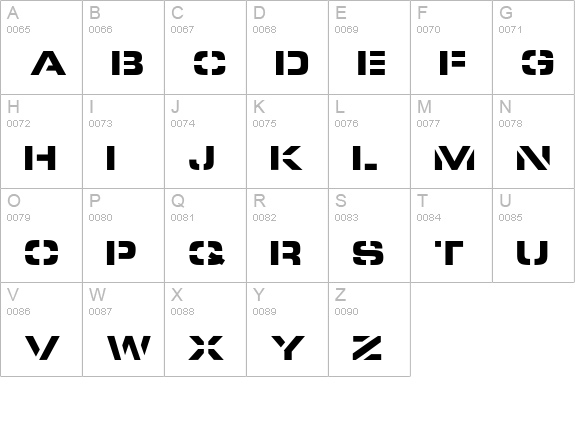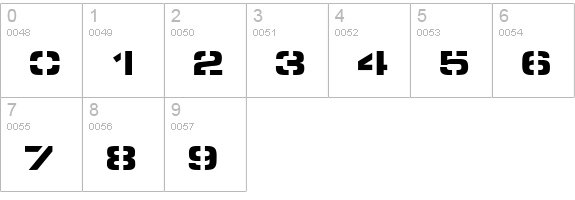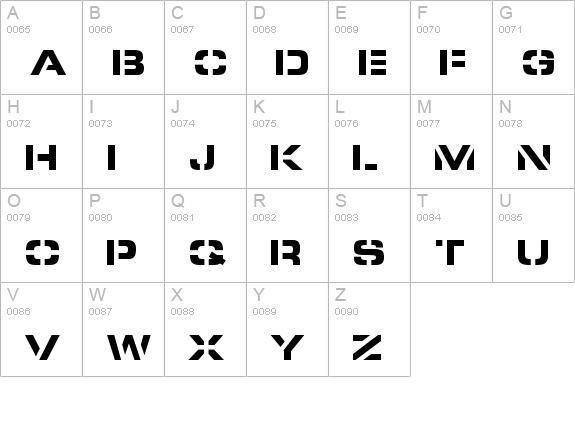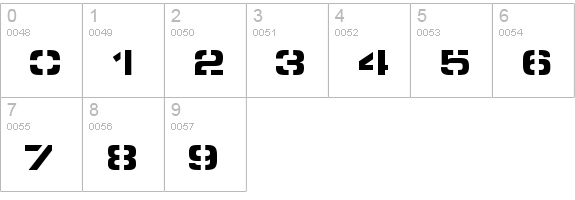
pyrostyle Font Details
Experience the fiery energy and dynamic movement of Pyrostyle font! With its bold strokes and sharp angles, this typeface is perfect for making a bold statement in your designs. Pyrostyle exudes a sense of passion and intensity, making it ideal for projects that demand attention and evoke excitement. And the best part? Pyrostyle font is completely free to download at FontsMarket.com! Don't miss out on this opportunity to add a touch of sizzle to your typography collection. Download Pyrostyle today and ignite your creativity!